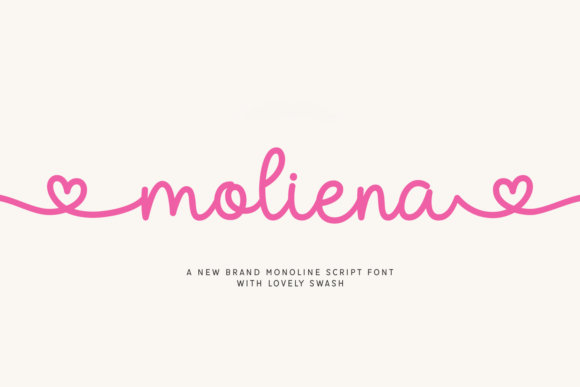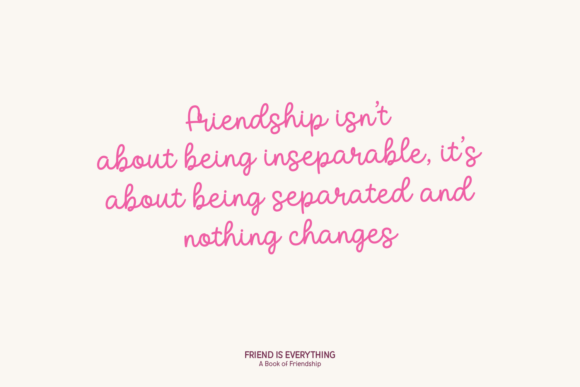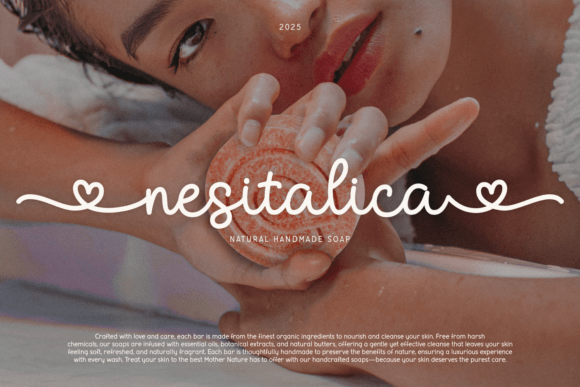
Moliena Font: Cute Handwritten Script for DIY Crafts & Baby Branding
About the Moliena Font
Add a touch of class to your work with the Moliena Font, a truly exceptional typeface. Moliena is a delightful monoline script font with charming heart-shaped swashes at both ends. Its sweet, handwritten feel makes it perfect for baby products, quotes, crafts, and stationery.
Moliena’s charming, handwritten aesthetic makes it ideal for projects requiring a touch of sweetness and playfulness. It excels in short text applications like logos, social media graphics, invitations, and product packaging for brands targeting a younger demographic or those emphasizing handcrafted quality. However, its monoline weight and script style make it less suitable for body text or situations demanding high readability, such as long-form content or user interfaces.
Pairing Moliena effectively requires considering its delicate nature. A clean sans-serif like Lato or Open Sans would provide a strong, modern counterpoint, enhancing readability in supporting text. For a more vintage feel, a serif like Playfair Display could create elegant contrast. Avoid pairing it with other script fonts to prevent visual clutter.
Moliena projects a friendly, approachable personality, best suited for brands associated with warmth, handmade products, or feminine aesthetics. Its inherent sweetness is not appropriate for projects needing a more serious, corporate, or minimalist presentation.
Moliena Font Example